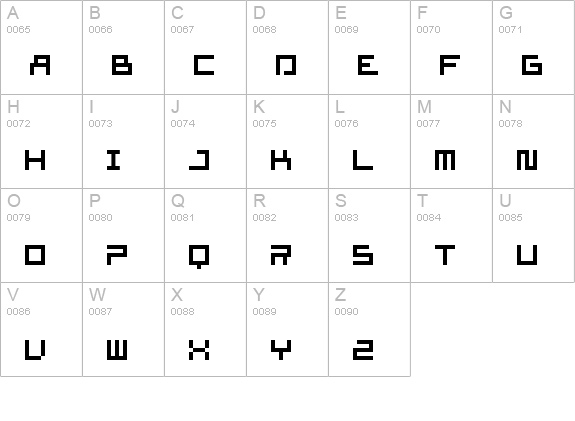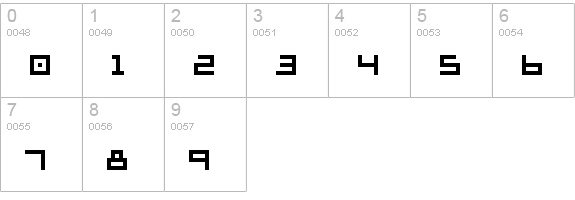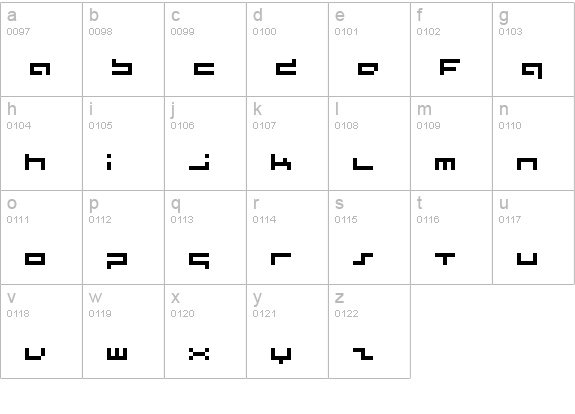
supersimple _regular Font Details
supersimple _regular is the standard, neutral variant in the supersimple typeface family \xE2\x80\x94 well suited to general body text, paragraphs, and standard typographic work.
Supersimple Regular font is a modern and sleek typeface that exudes simplicity and elegance. With its clean lines and balanced proportions, this font is perfect for a wide range of design projects. Whether you're creating a logo, poster, or website, Supersimple Regular will add a touch of sophistication to your work. The best part? Supersimple Regular is completely free to download at FontsMarket.com. This means you can easily access this high-quality font without breaking the bank. Don't miss out on the opportunity to enhance your designs with the timeless appeal of Supersimple Regular. Download it today and elevate your creative projects to the next level!